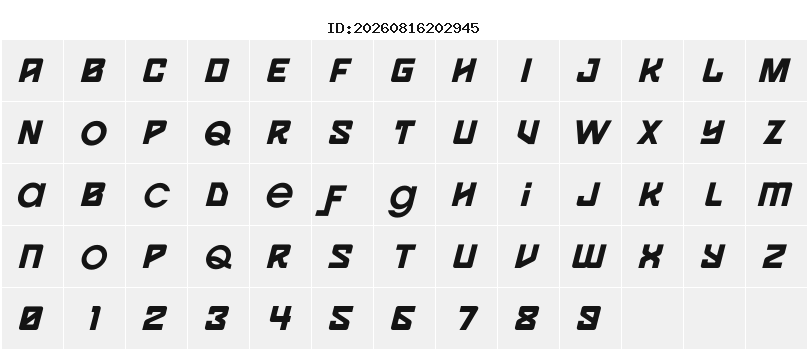
Spaceport One Preview
• Font Name: Spaceport One
• Full Font Name: Spaceport One Medium
About Spaceport One.ttf
Spaceport One.ttf is a modern, elegant sans-serif font designed for ultimate readability and visual harmony. Perfect for branding, headlines, web design, and print materials.